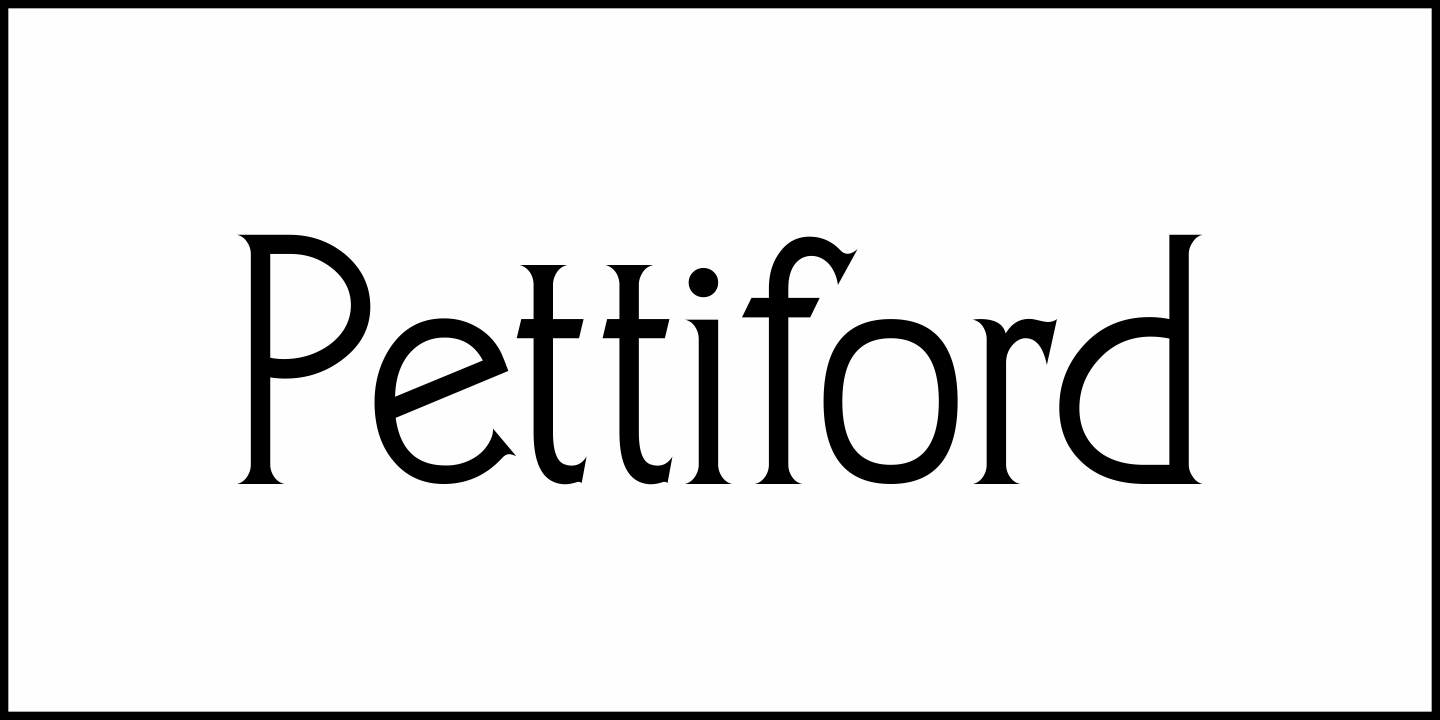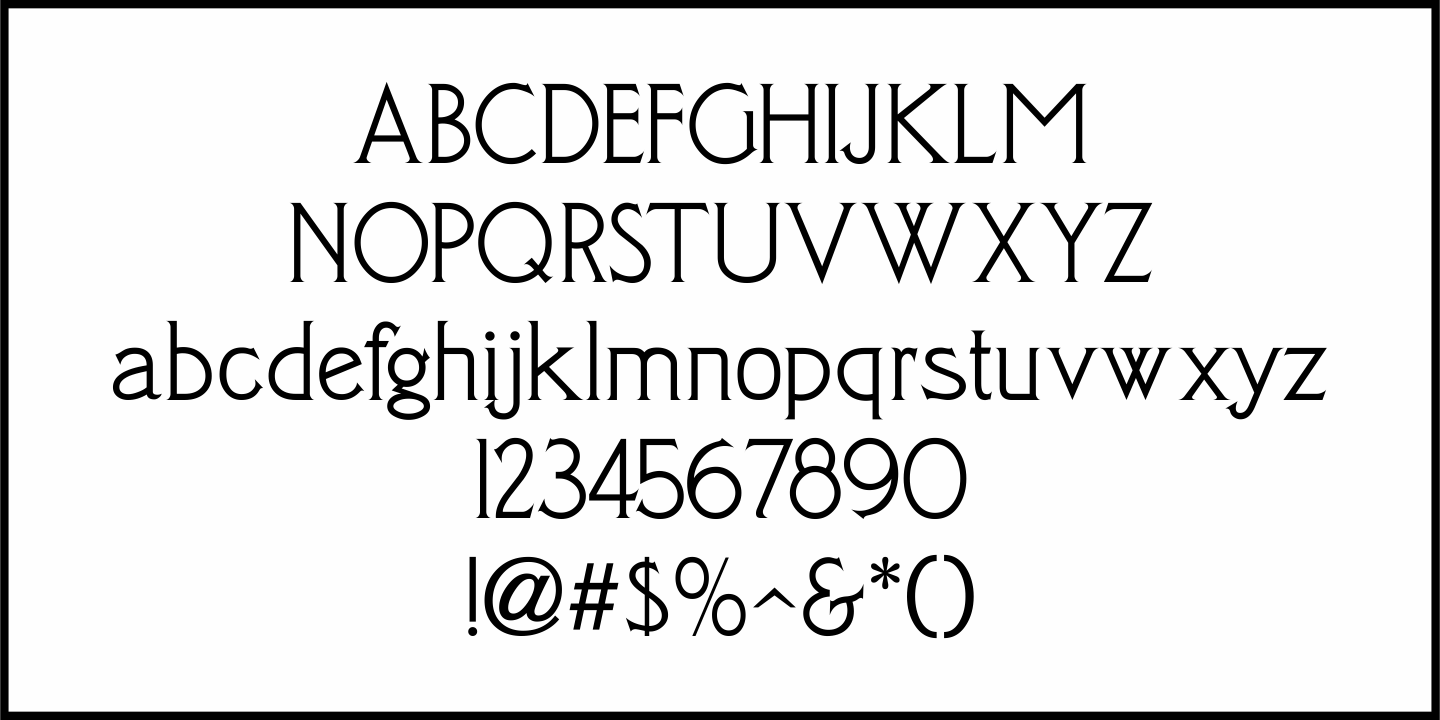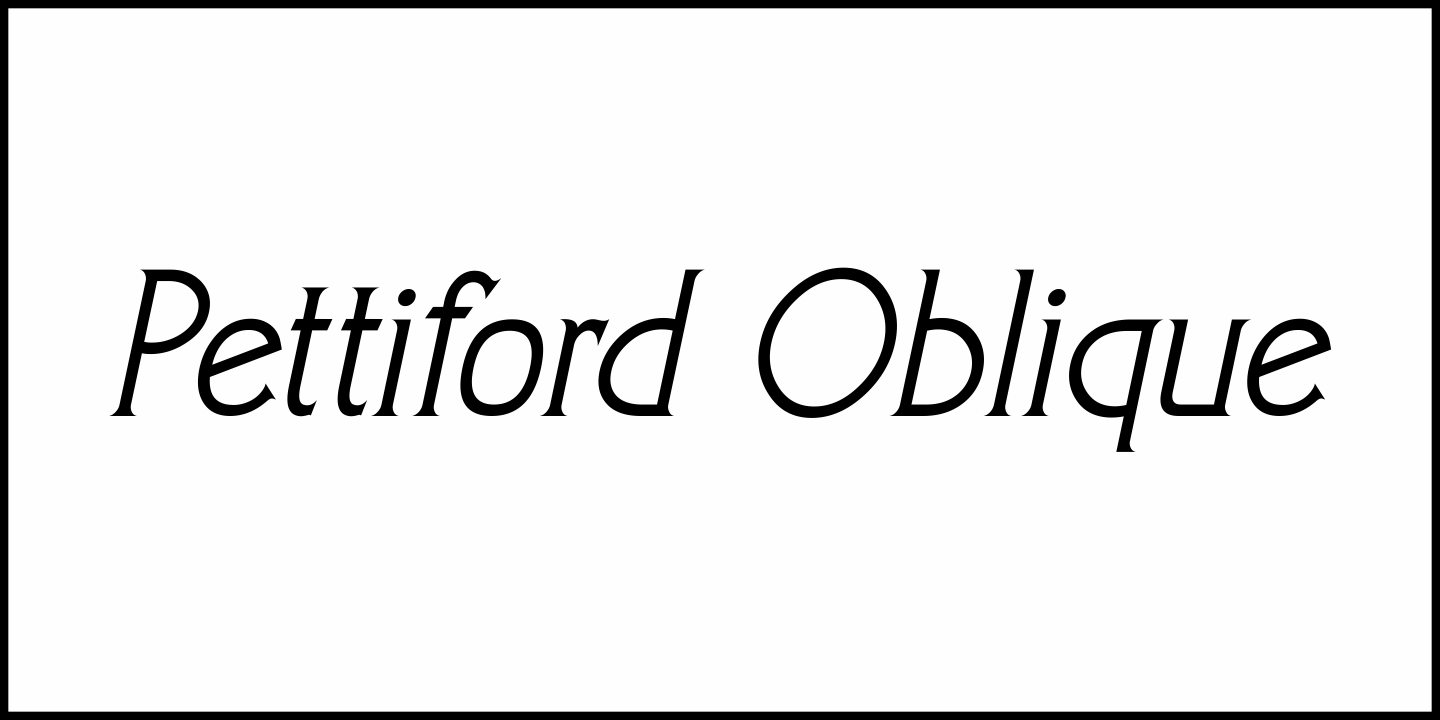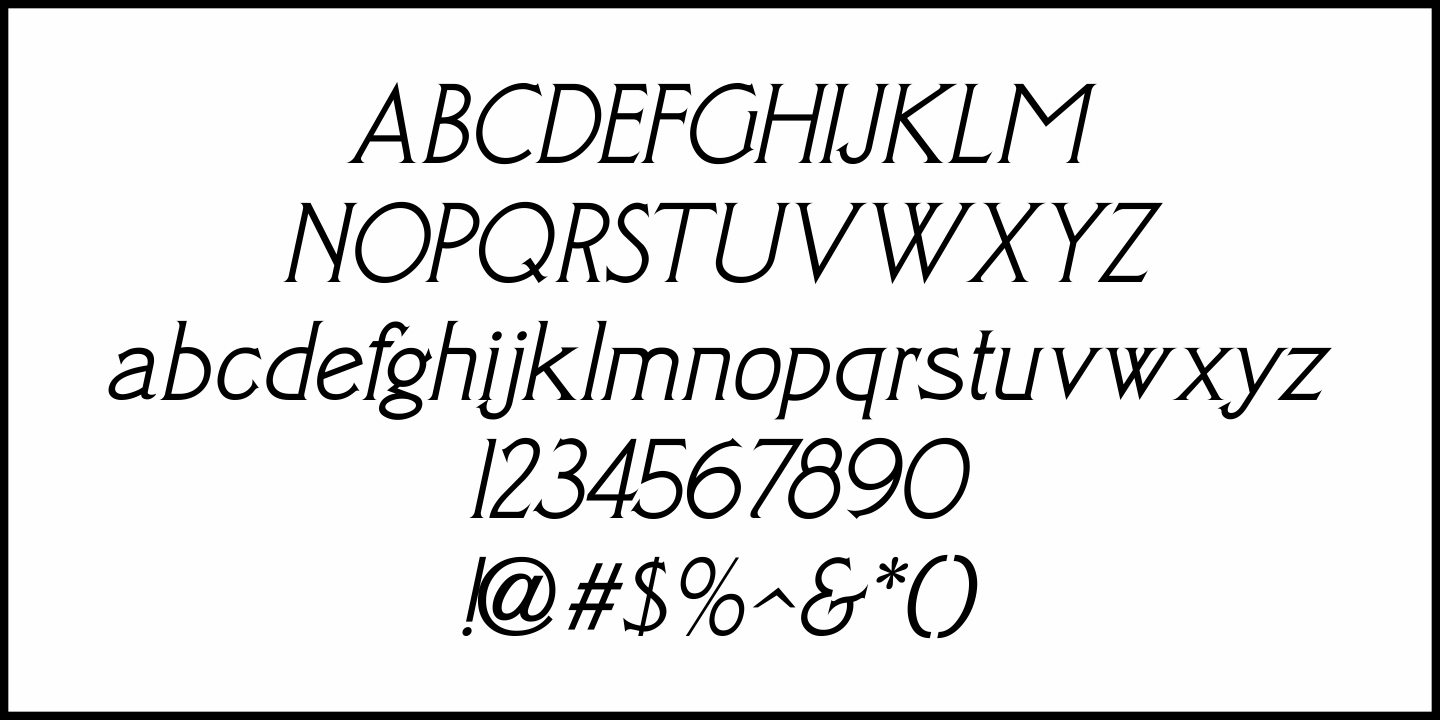
Pettiford
Within the pages of the Pettingill & Co. (Boston) 1901-02 specimen book is Camelot Old Style – a thin stroke spurred serif typeface with traces of Art Nouveau influence.
This had been redrawn digitally as Pettiford JNL, and is available in both regular and oblique versions.